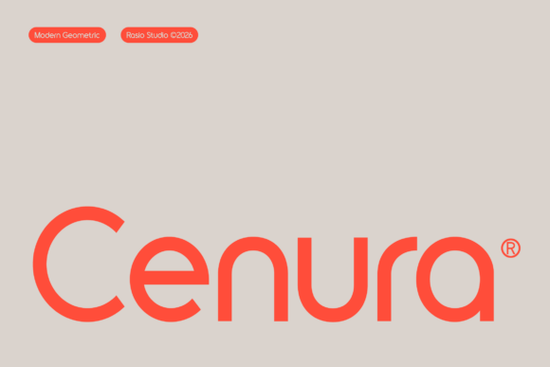
If you're looking for a font that embodies minimalist sophistication, Cenura Font is a great choice. This modern geometric sans-serif font strikes a perfect balance between precision and style, making it ideal for a variety of design projects.
Why Choose Cenura Font?
Cenura stands out with its ultra-sleek design, featuring fluid circular tracking and clean, hard-vertical stems. The uniform line weight and stabilized structural rhythm give it a premium, corporate feel. Whether you're designing for a tech startup, an architectural firm, or a luxury brand, Cenura can add a touch of elegance and professionalism to your work.
Perfect for Minimalist Designs
One of the key features of Cenura is its perfect optical kerning. This means that the negative space in your designs is used intelligently, allowing the font to perform flawlessly over solid color fields and minimalist layouts. For designers who appreciate clean, uncluttered aesthetics, Cenura is a go-to choice.
Versatile Applications
Cenura is not just limited to one type of project. It serves as an extraordinary branding asset for:
- Modern tech startups
- Futuristic app user interfaces
- Minimalist architectural firm signage
- Luxury corporate stationery layouts
- High-impact industrial product labeling
Its versatility makes it a valuable addition to any designer's toolkit.
How Does Cenura Compare to Other Sans-Serif Fonts?
While there are many sans-serif fonts available, Cenura distinguishes itself with its unique blend of geometric precision and fluidity. Here’s how it compares to some other popular options:
- Ocean Beach Font: Known for its casual, beachy vibe, Ocean Beach is more relaxed and less formal compared to the sleek, professional look of Cenura.
- Sugra Font: Sugra offers a more playful and whimsical style, which might be better suited for creative and fun projects rather than the corporate and minimalist applications where Cenura shines.
- Vorn Font: Vorn has a more rugged, industrial feel, making it a good choice for edgier, more robust designs. Cenura, on the other hand, provides a refined and polished appearance.
Each font has its own strengths, but Cenura is particularly well-suited for projects that require a high level of sophistication and precision.
Where Can I Use Cenura Font?
Cenura is incredibly versatile and can be used in a wide range of design projects. Here are some specific use cases:
- Branding and Logos: Create a strong, memorable brand identity with Cenura's clean lines and professional look.
- Web Design: Use Cenura for headings and body text in web designs to achieve a modern, minimalist aesthetic.
- Print Materials: Incorporate Cenura into business cards, brochures, and other printed materials for a touch of elegance.
- Signage and Wayfinding: Design clear, easy-to-read signs and wayfinding systems for buildings and public spaces.
- Product Labeling: Add a premium feel to product labels and packaging with Cenura's sophisticated design.
Whether you’re working on a digital or print project, Cenura can help you achieve a professional and polished look.
Practical Tips for Using Cenura Font
To get the most out of Cenura, here are some practical tips:
- Pair with Complementary Fonts: Combine Cenura with a serif or script font for a balanced and dynamic design.
- Use Adequate Spacing: Take advantage of Cenura’s perfect optical kerning by ensuring there is enough space between letters and words for optimal readability.
- Test on Different Backgrounds: Experiment with different background colors and textures to see how Cenura performs in various contexts.
- Keep It Simple: Let Cenura’s clean, minimalist design speak for itself. Avoid overcomplicating your designs with too many elements.
By following these tips, you can create stunning and effective designs with Cenura Font.